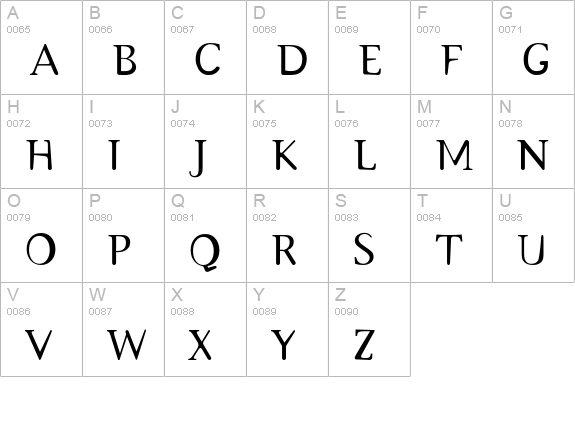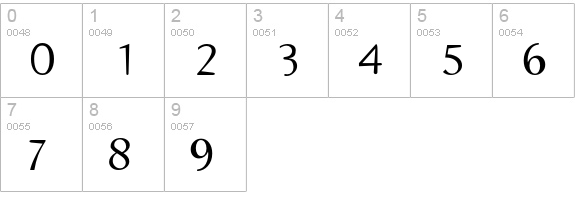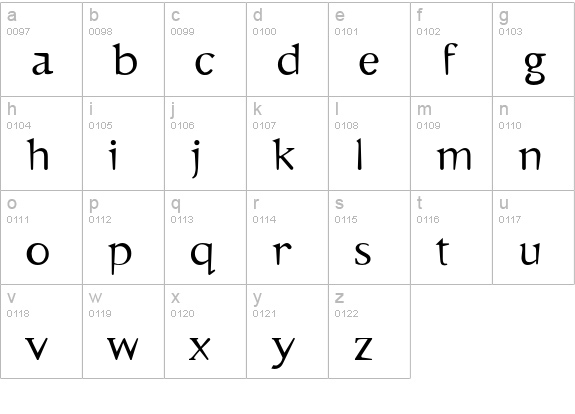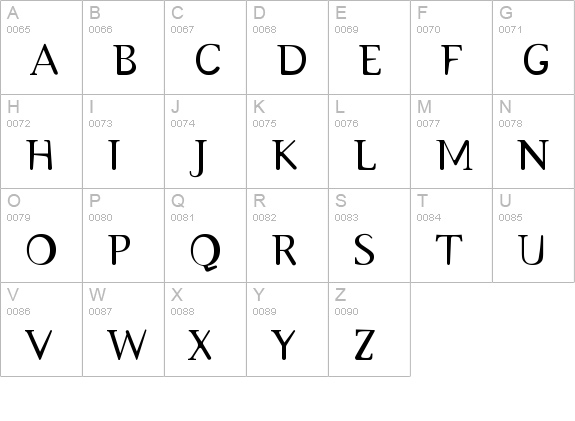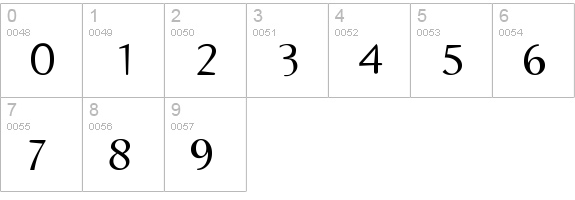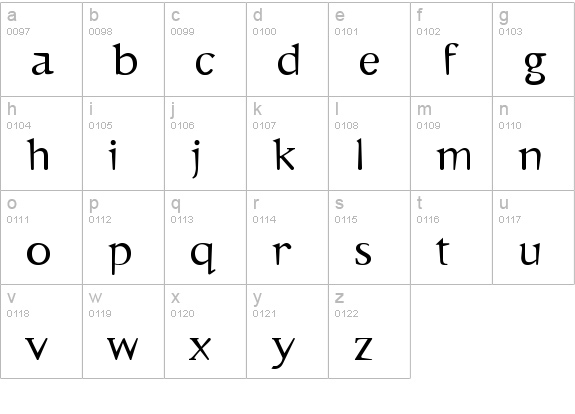
EmulateSerif Font Details
EmulateSerif font is a timeless and elegant typeface that exudes sophistication and charm. With its classic serifs and graceful curves, EmulateSerif is perfect for adding a touch of refinement to your projects. Whether you're designing a wedding invitation, crafting a logo, or creating a stunning poster, this font will elevate your work to new heights. The best part is that EmulateSerif font is completely free to use! You can easily download it from FontsMarket.com and start incorporating its beauty into your designs right away. EmulateSerif offers a wide range of characters and symbols, making it versatile and suitable for various design needs. Add a touch of class to your typography with EmulateSerif font today.